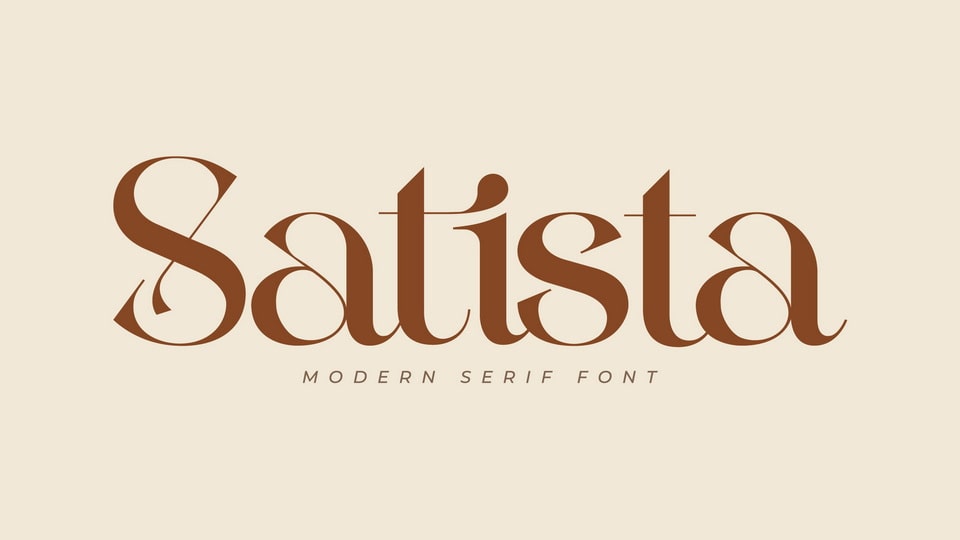
Download Satista font, an aesthetic serif typeface that has own unique style and modern look. Satista font is perfect for an elegant and luxury logo, book or movie title design, fashion brand, magazine, clothes, lettering, quotes, and so much more.